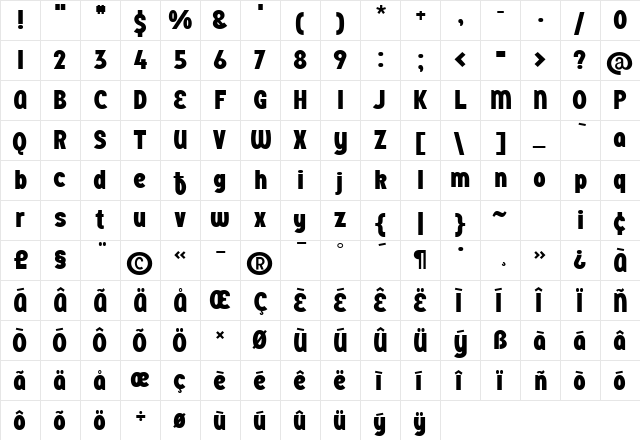
SisterBlack Regular
Design Context for SisterBlack Typeface
SisterBlack takes a measured approach to typography — its balanced proportions and neutral character make it a reliable workhorse for both digital and print work.